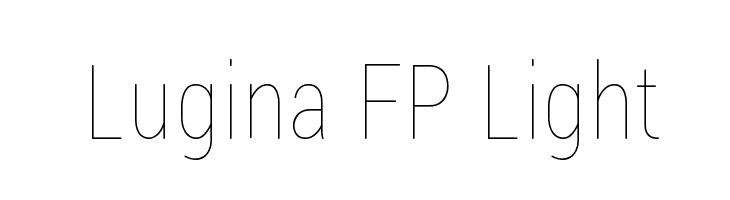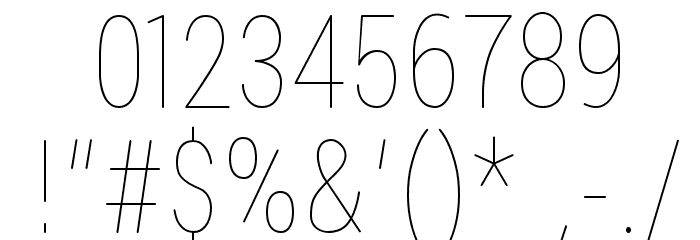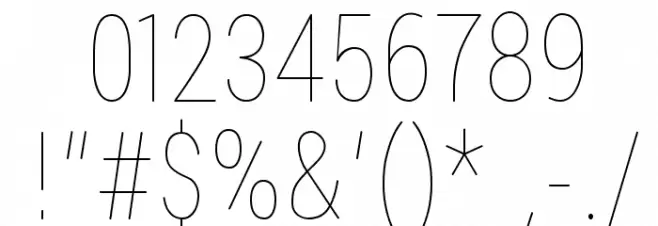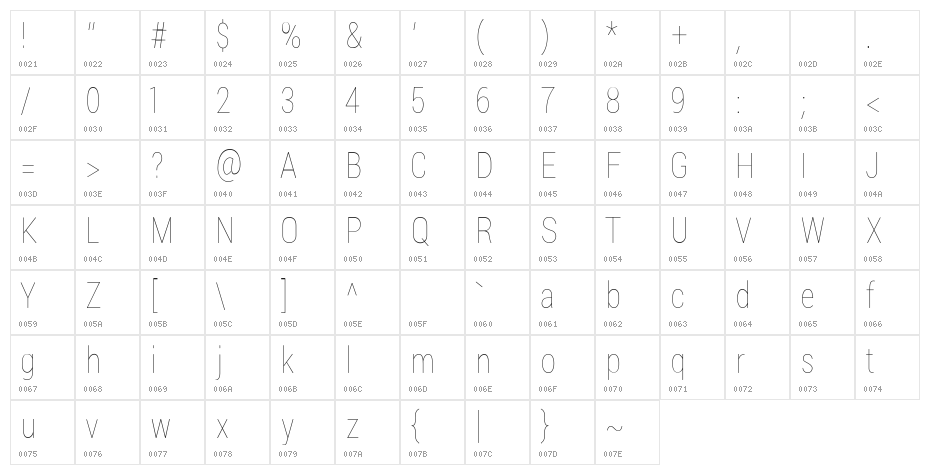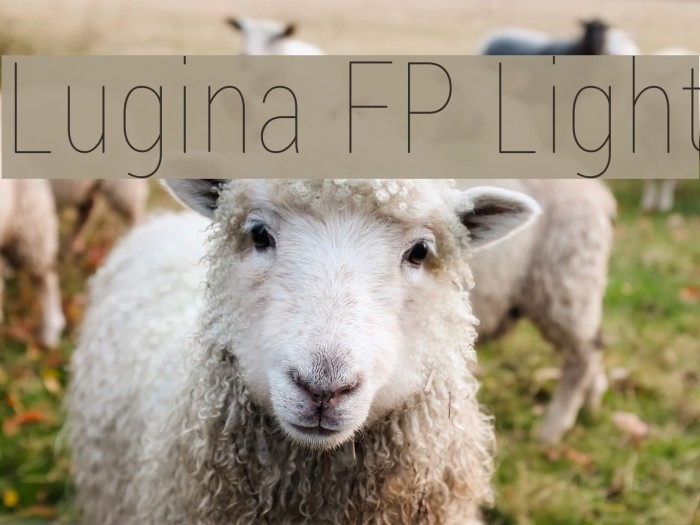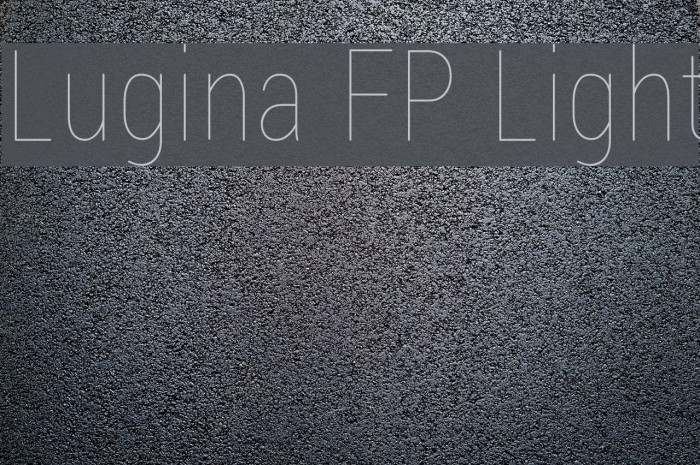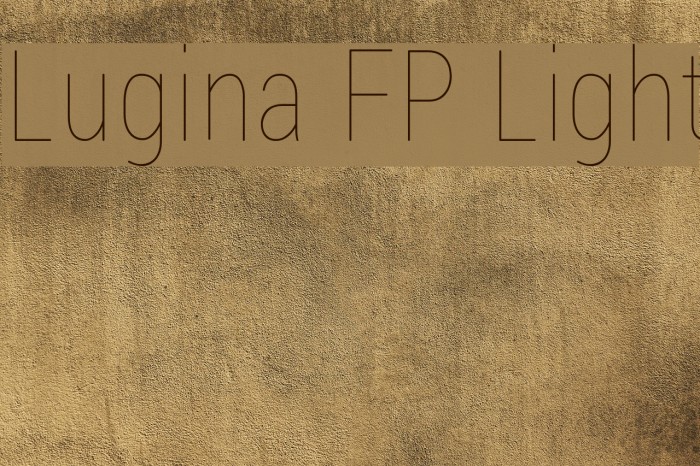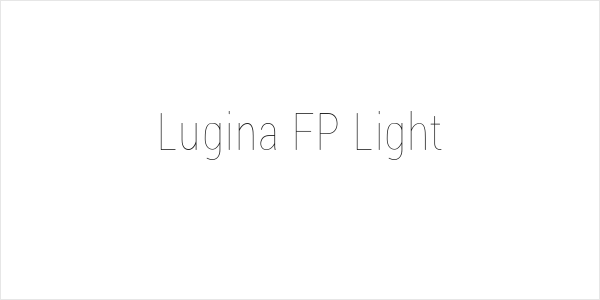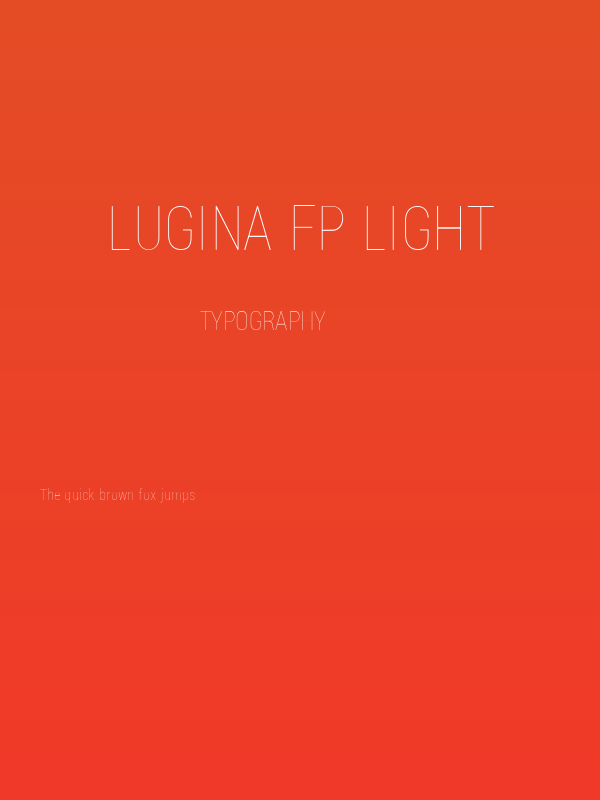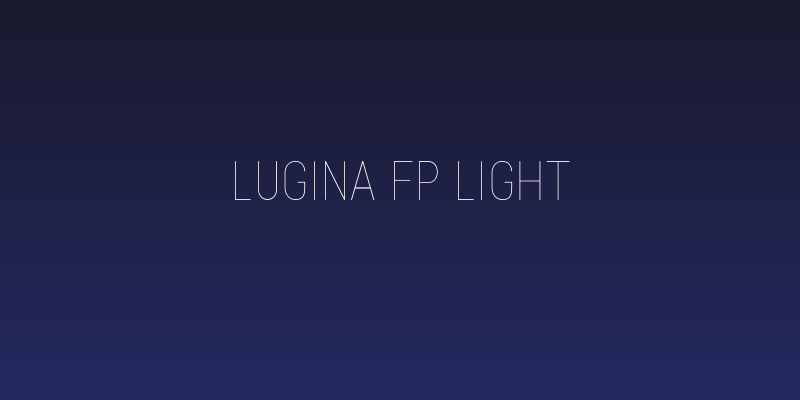
Lugina FP Light Font
Lugina FP Light Description
This font features a clean and minimalist design with thin, uniform strokes that give it a modern and elegant appearance. The characters are tall and narrow, contributing to a sleek and sophisticated look. The uppercase and lowercase letters maintain a consistent style, with a slight geometric influence visible in the precise angles and curves. The numerals are clear and easy to read, matching the overall aesthetic. Special characters are well-integrated, maintaining the font's cohesive design. This font's simplicity and clarity make it versatile for various applications.
| Proposed Projects | Ideal for branding, editorial design, websites, and minimalist graphic design projects. |